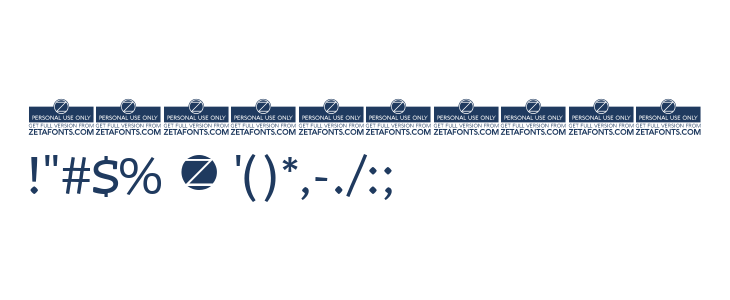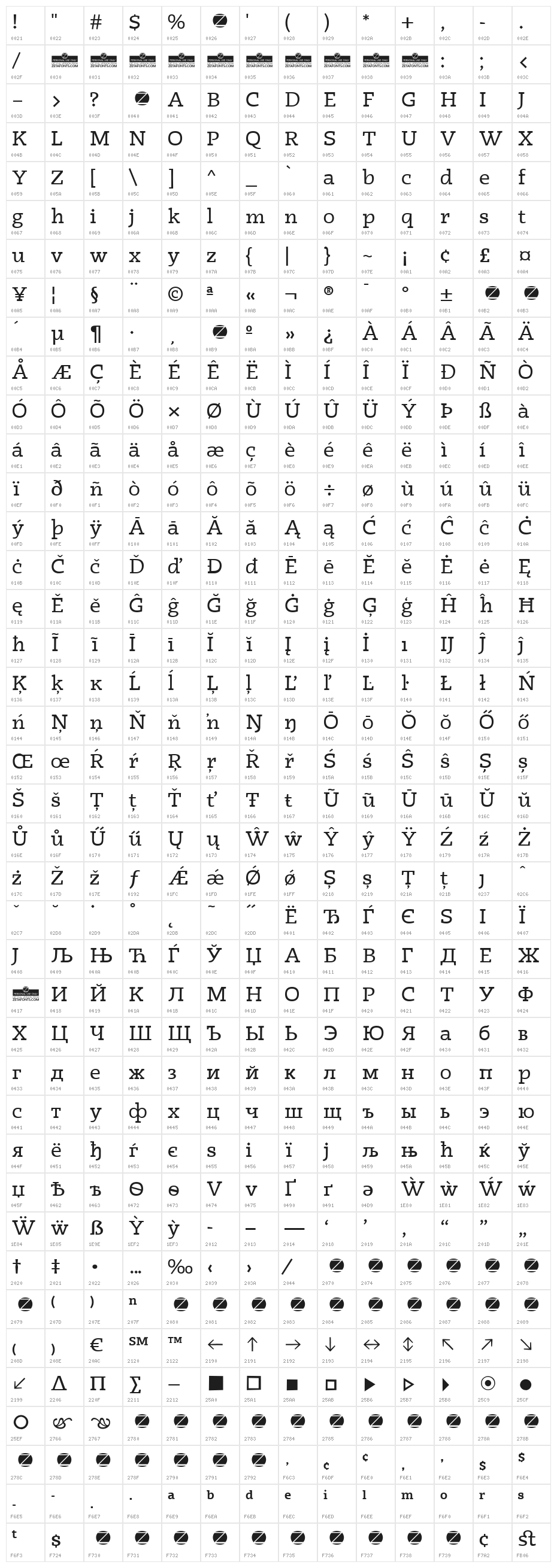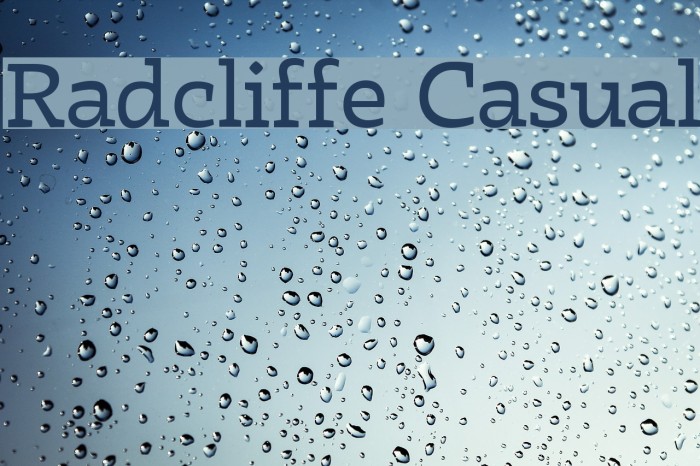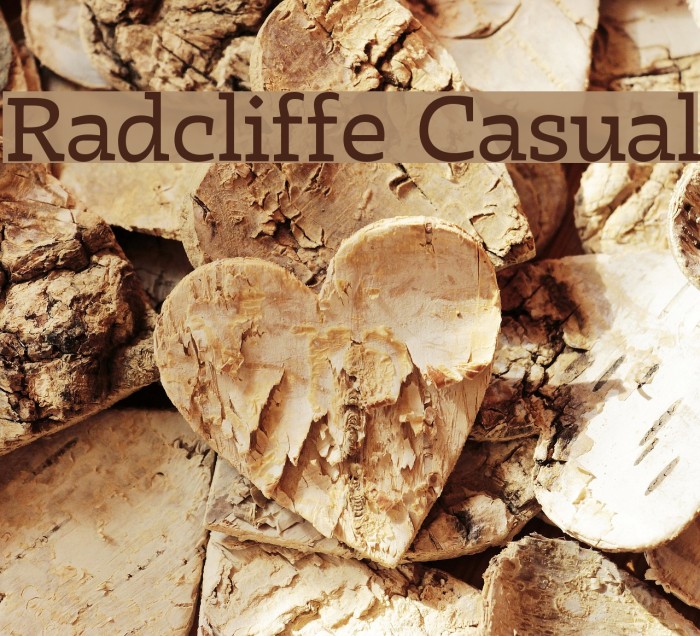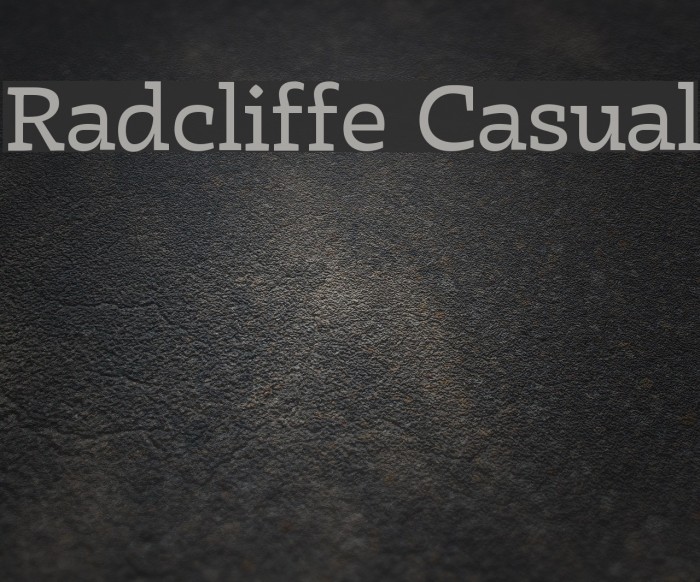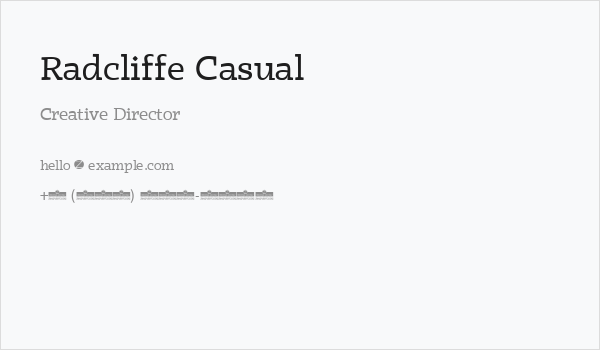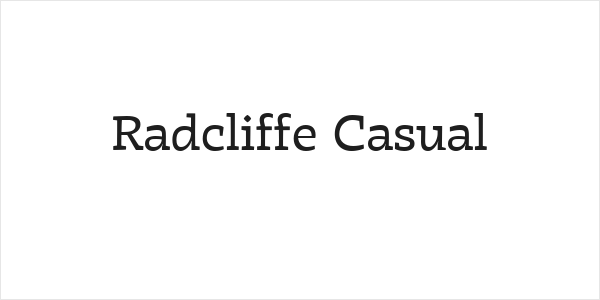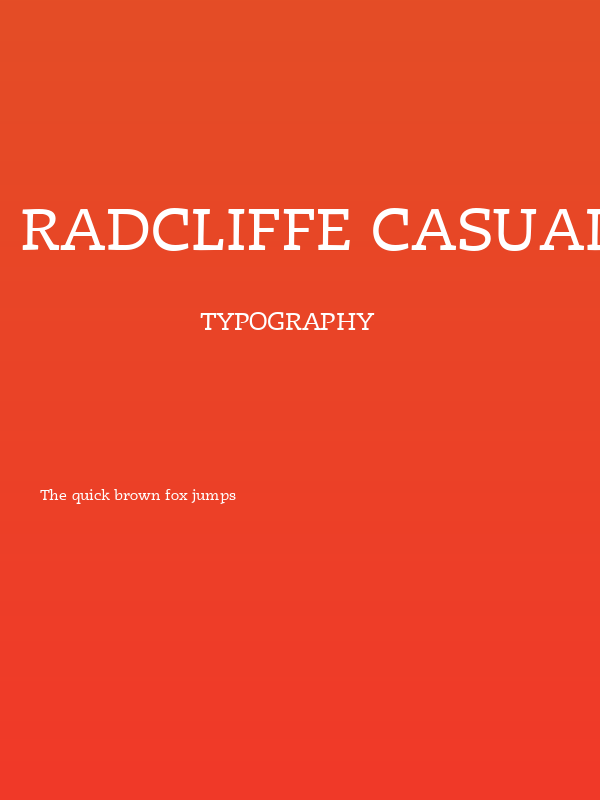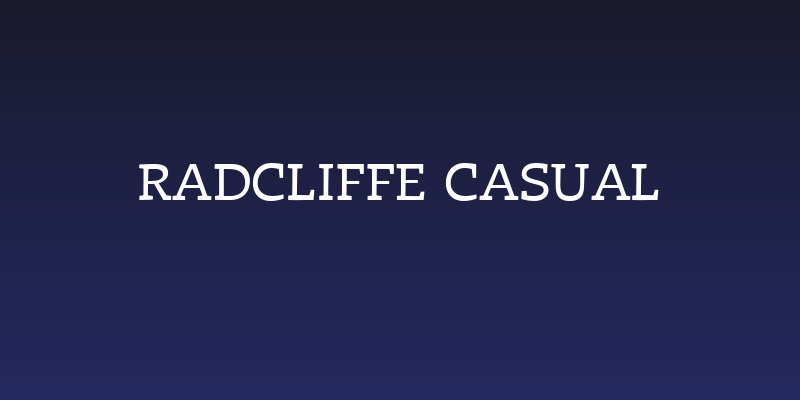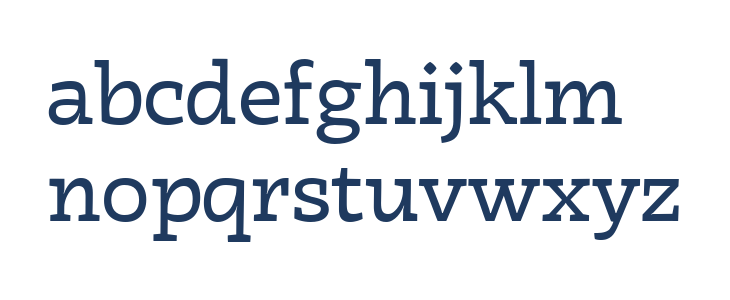
Radcliffe Casual Font
Radcliffe Casual Description
This font exhibits a classic serif style with a modern twist, featuring clean lines and a balanced structure. The uppercase letters are bold and commanding, while the lowercase letters maintain a consistent flow with slightly rounded edges, adding a touch of softness. The numerals are clear and legible, making them suitable for various applications. Special characters are well-defined, ensuring versatility in design projects. The overall appearance is both professional and approachable, making it ideal for a wide range of uses.
| Proposed Projects | Ideal for editorial design, branding, and corporate materials due to its professional yet approachable style. |